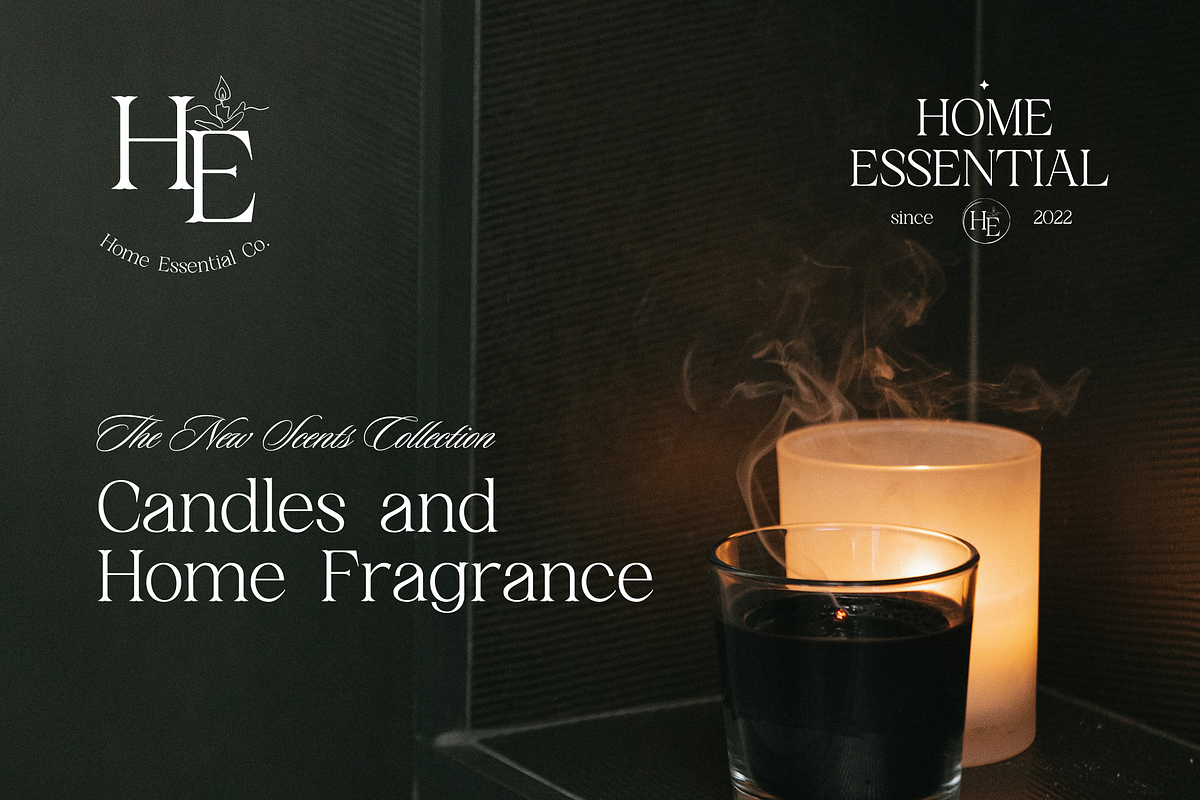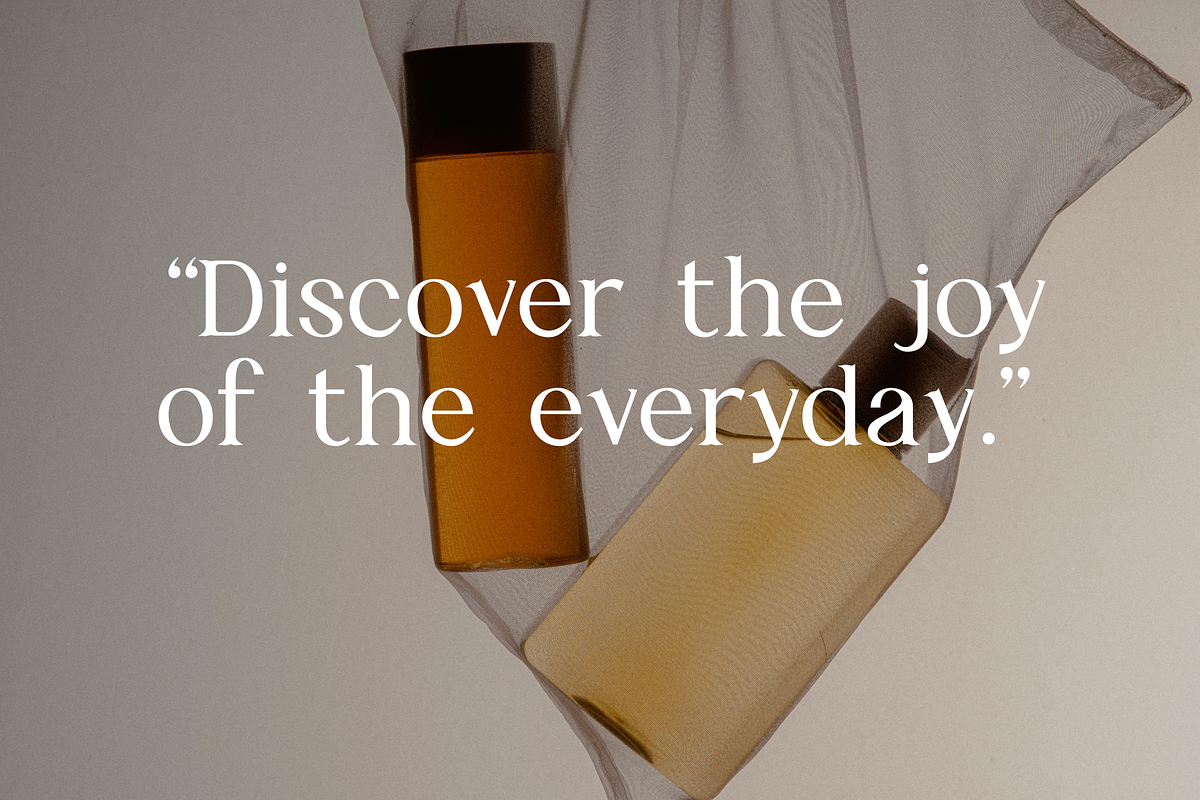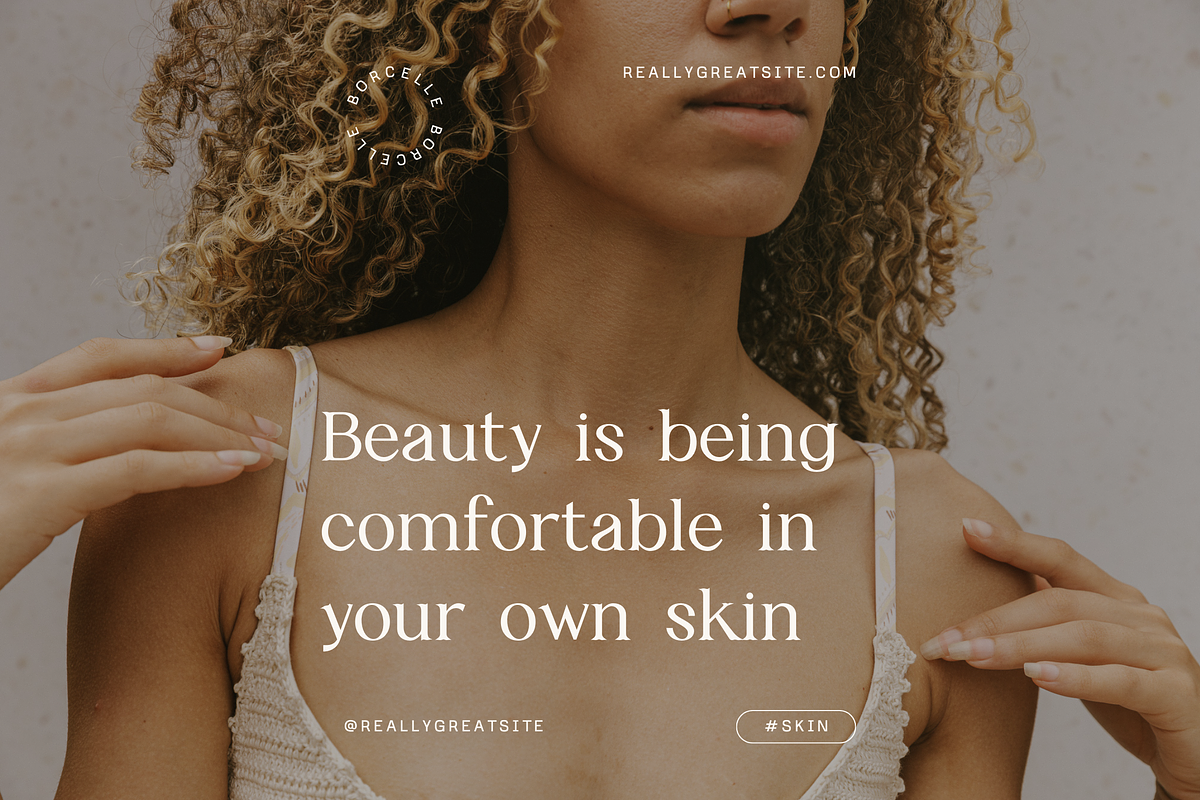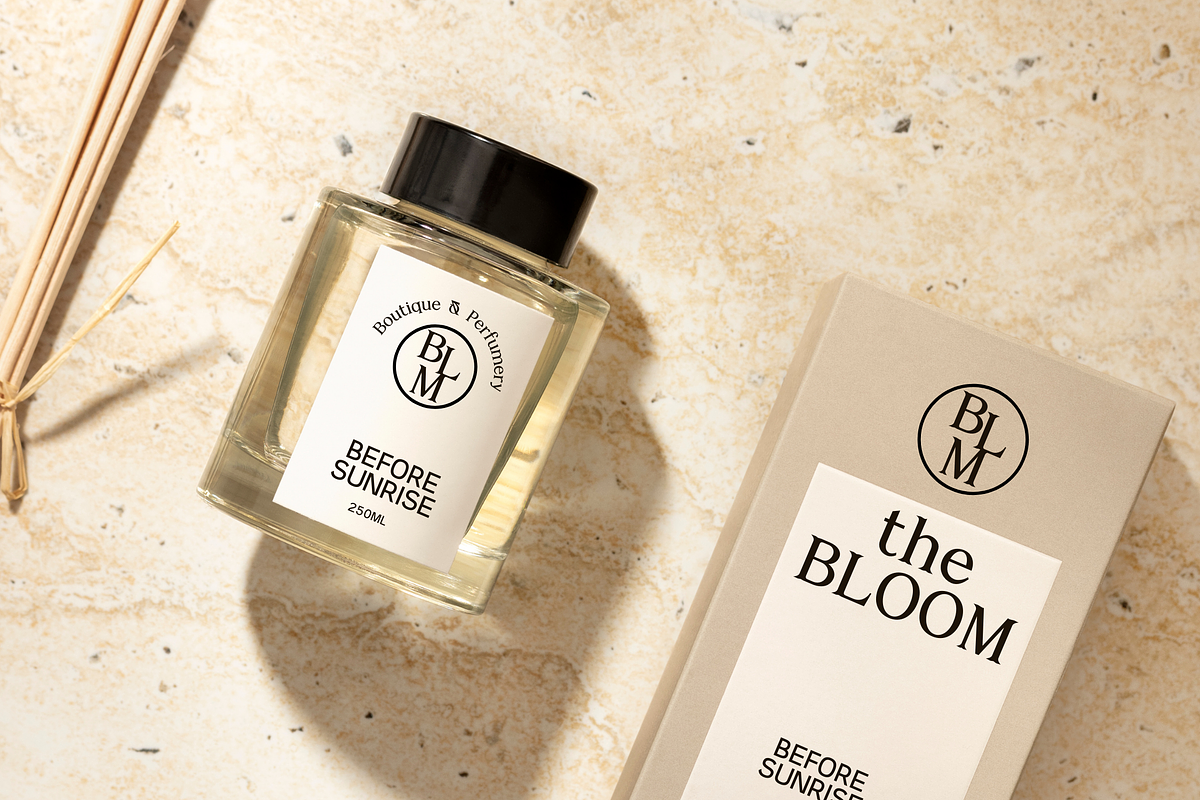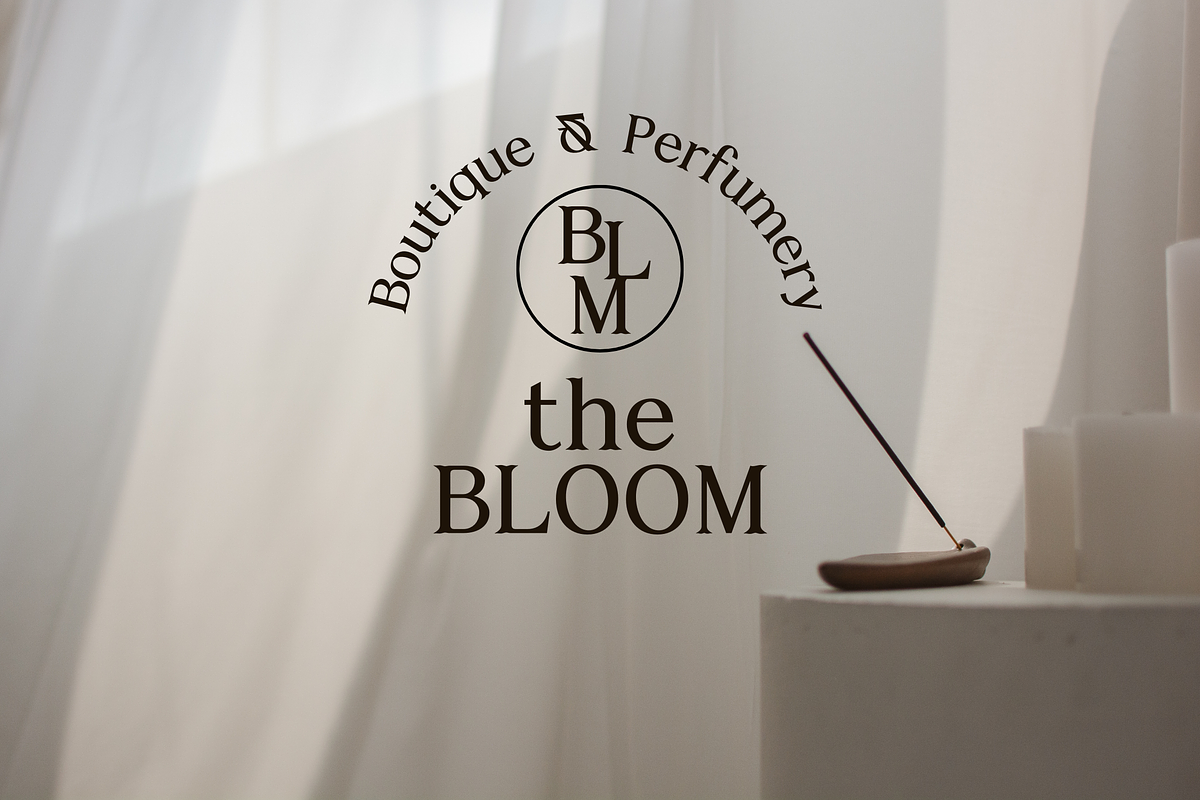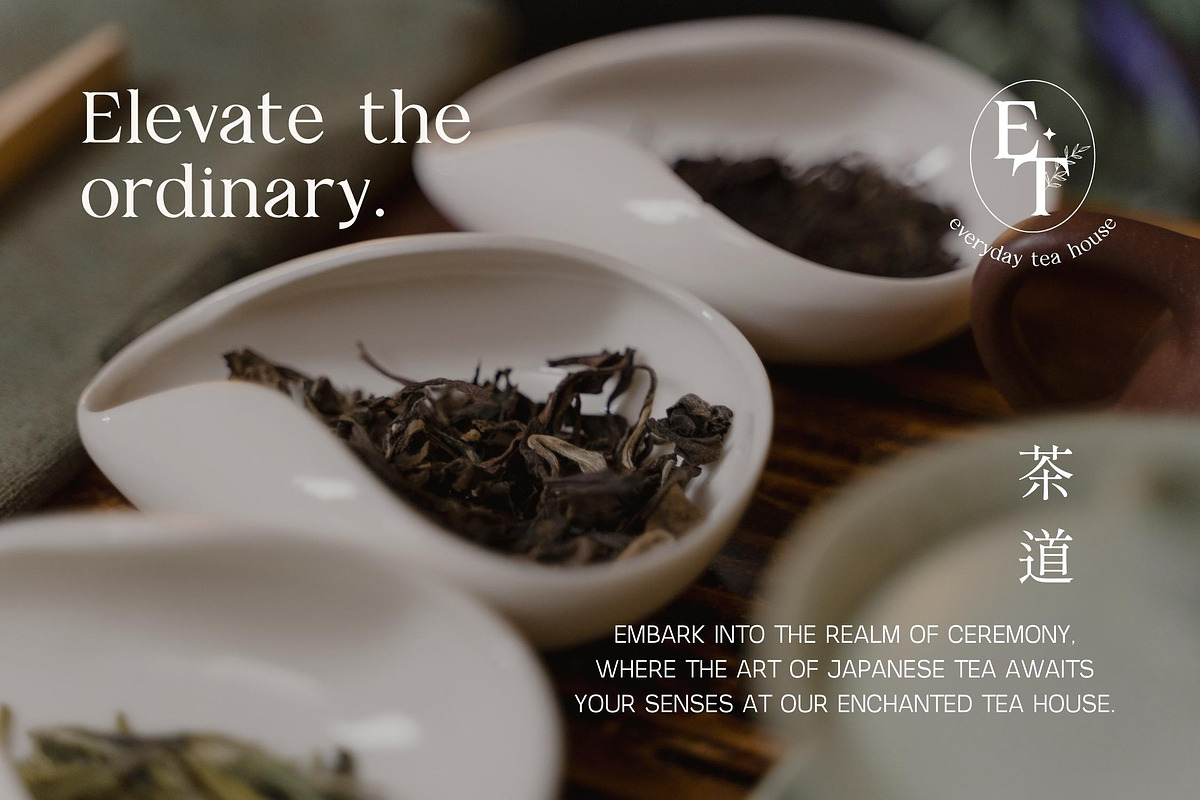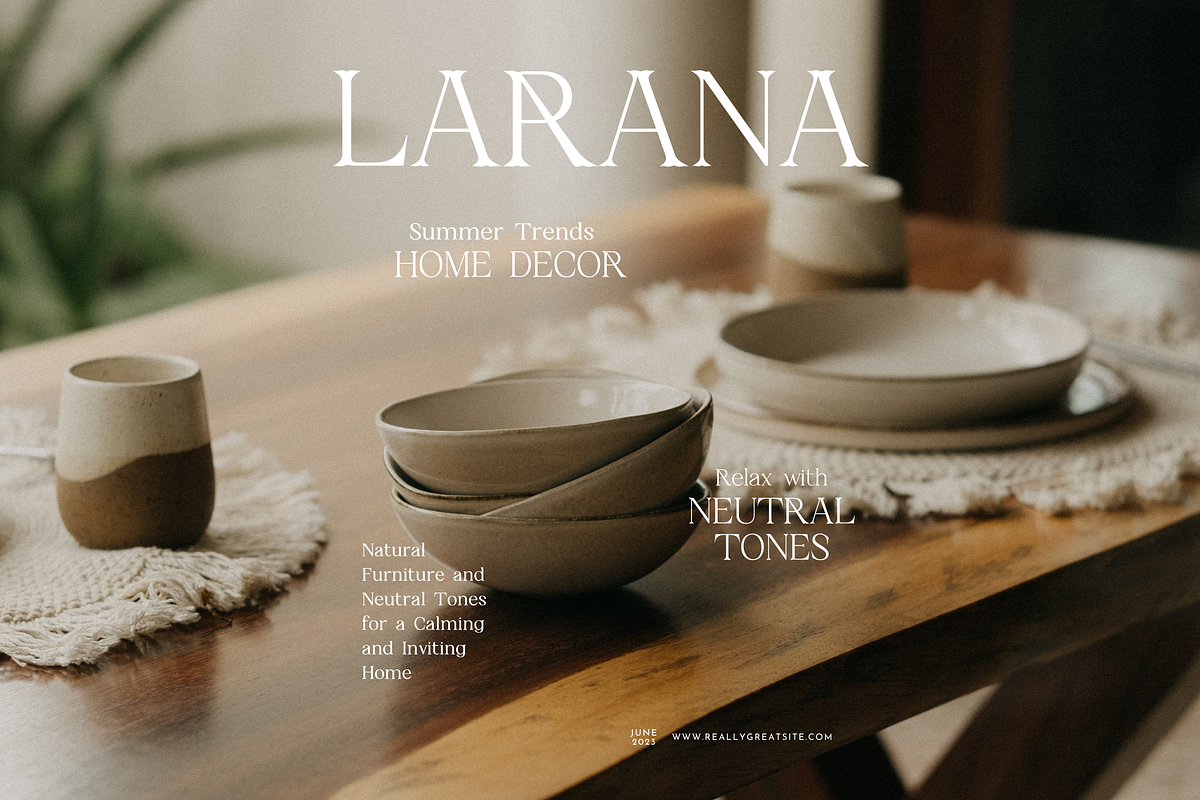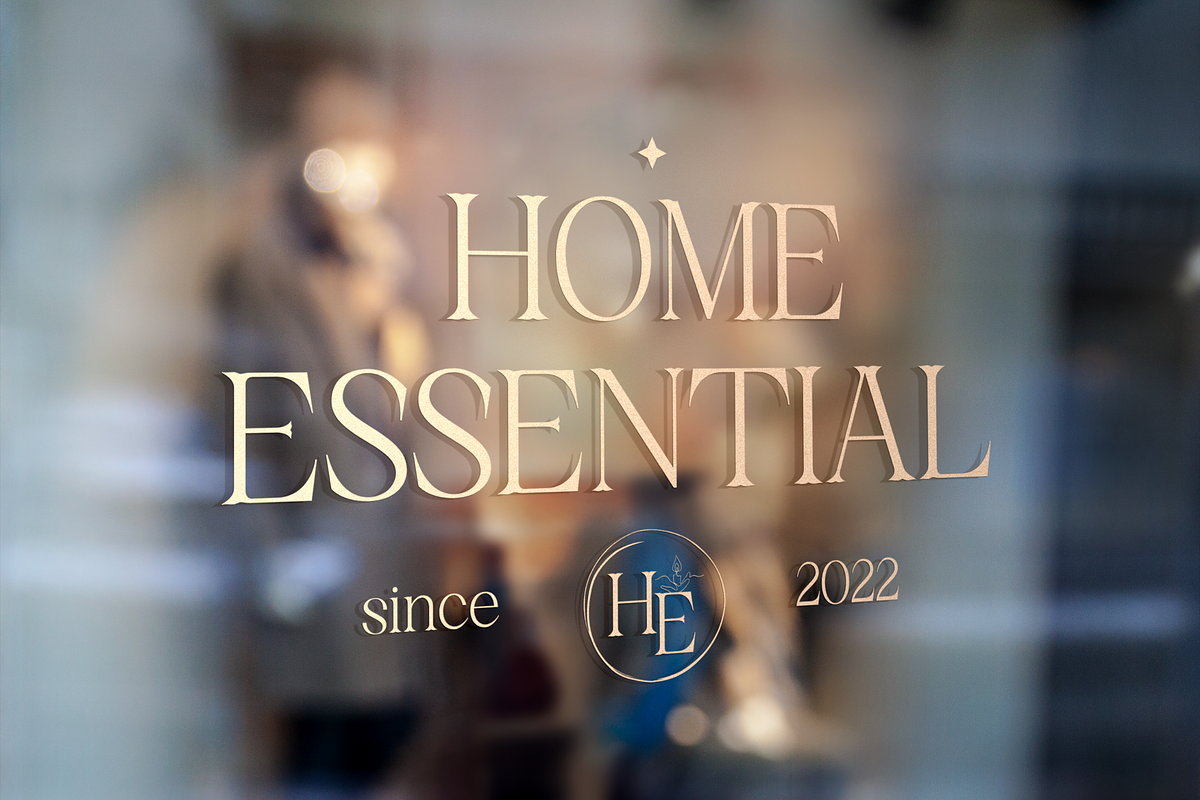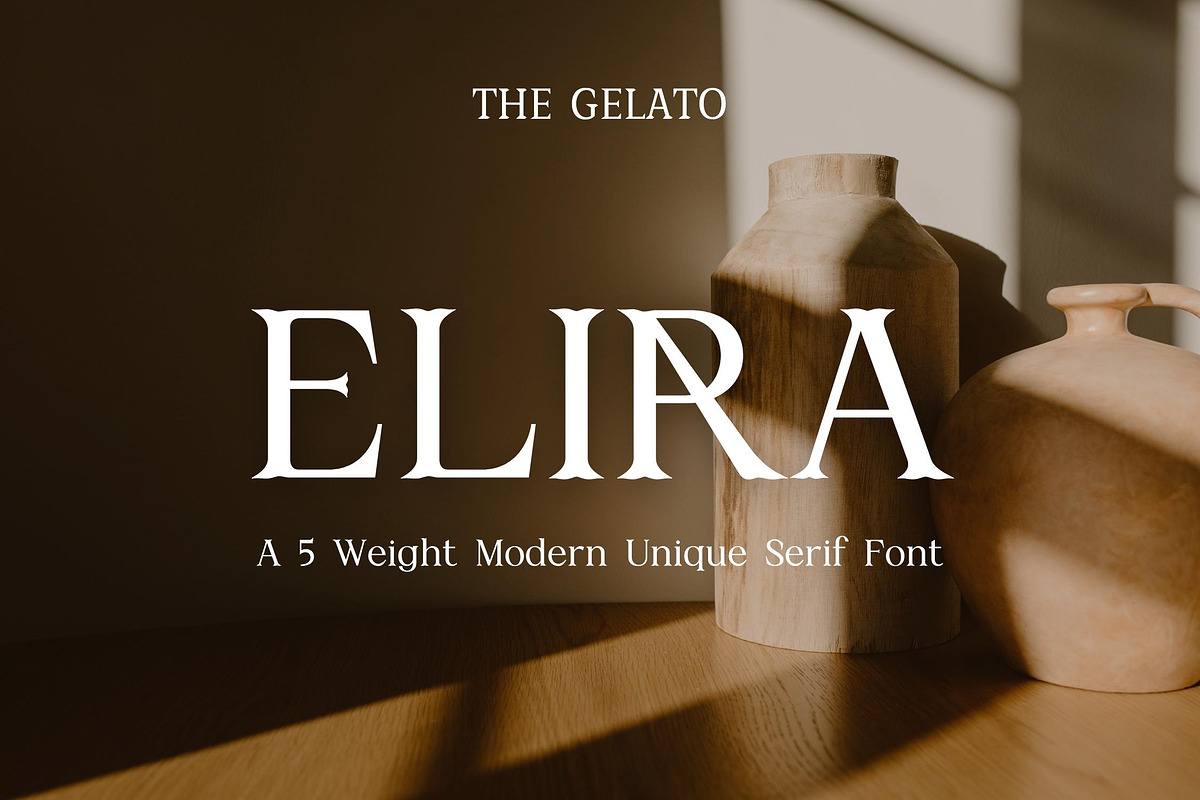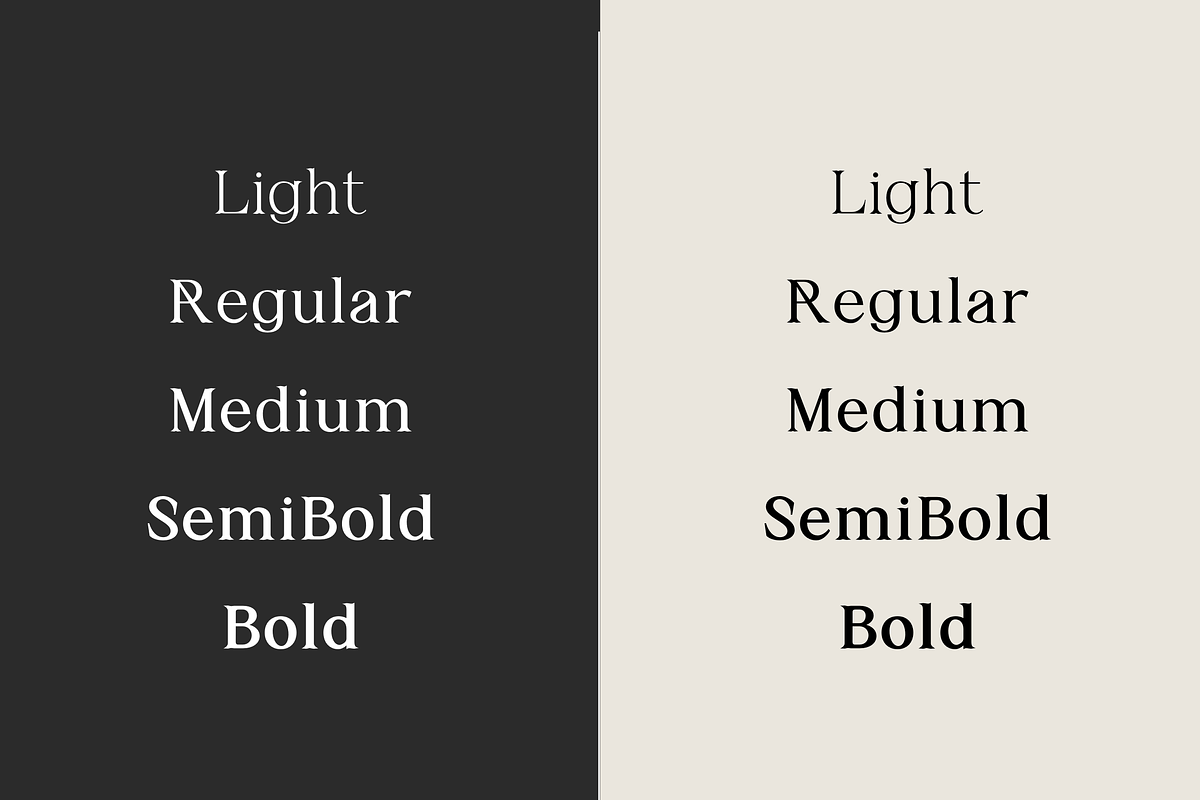
ELIRA | Modern Elegant Serif
ELIRA is an Elegant Aesthetic Serif Font with 5 weights and multilingual supports. It can be used as a Wedding Invitation Font, Elegant Branding Font, Luxury Brand Font, Classic Logo Font, Premium Packaging Font, Fashion Magazine font, Unique Branding Font, Stylish Urban Font, Magazine Layout Font, Classy Logo Font, Minimal Branding Font
Perfectly suitable for numerous use such as quotations, banners, logos, product packaging, titles, headers, Business cards, menu lists, and invitation cards!